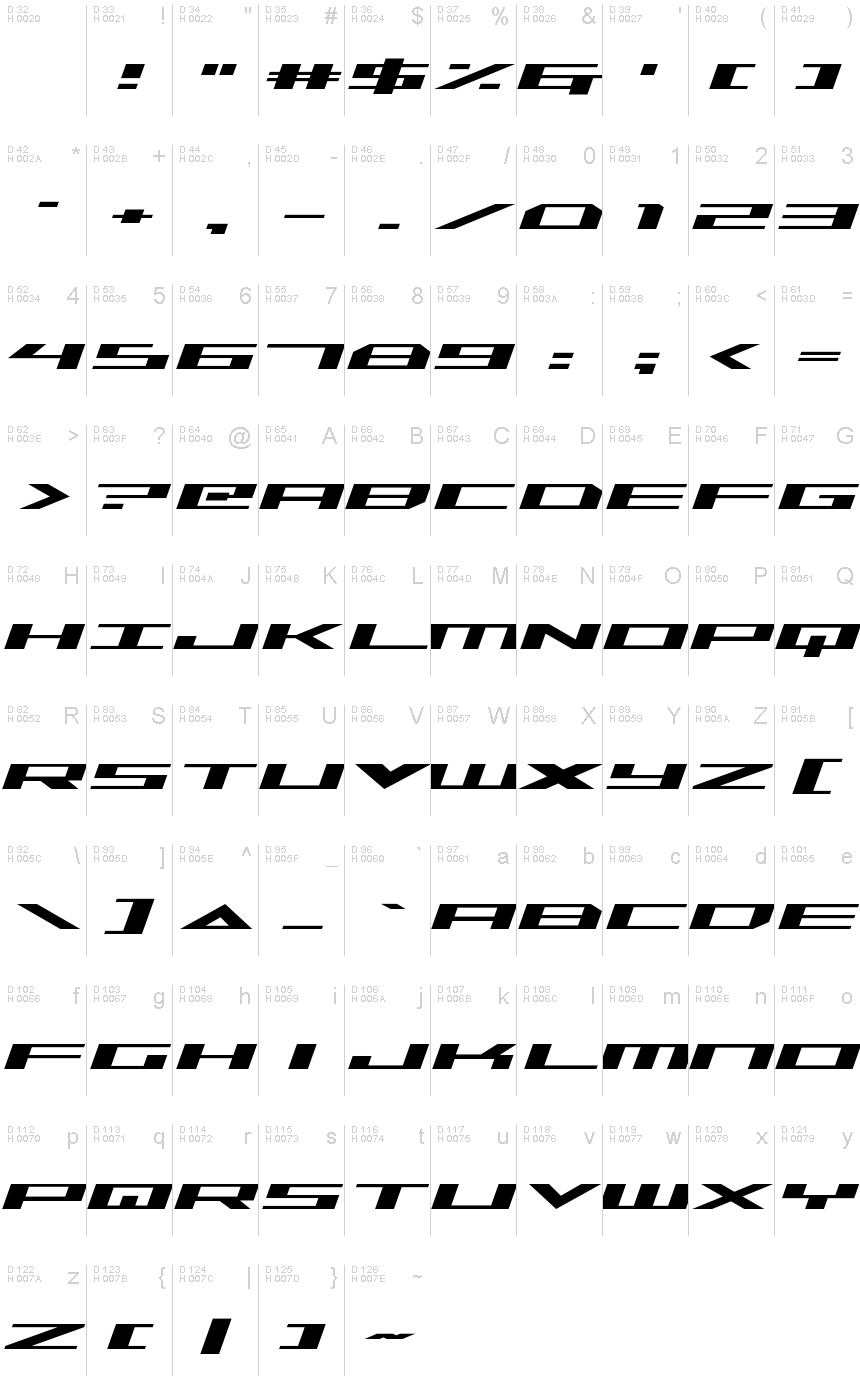
Trireme Expanded Italic by Daniel Zadorozny of Iconian Fonts is a free futuristic display font with an emphatic forward lean. Its extremely wide letters use broad, flat strokes, sharp diagonal cuts, and narrow internal gaps. Repeated breaks across the forms give the lettering the sleek, segmented look of a custom machine badge.
Motorsport branding and science-fiction game interfaces are very different settings, but both suit the font's speed-focused silhouette and engineered detailing. It can also shape electronic music packaging and event posters aimed at audiences drawn to racing hardware, arcade technology, high-impact futuristic graphics, and experimental digital entertainment culture.